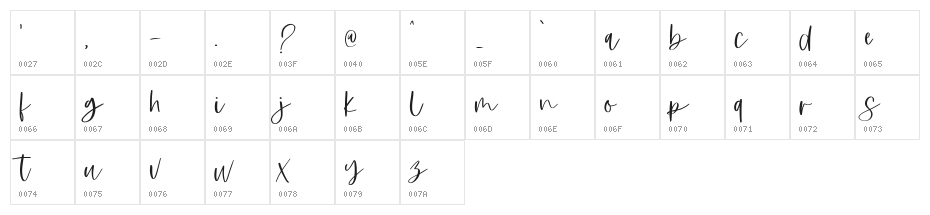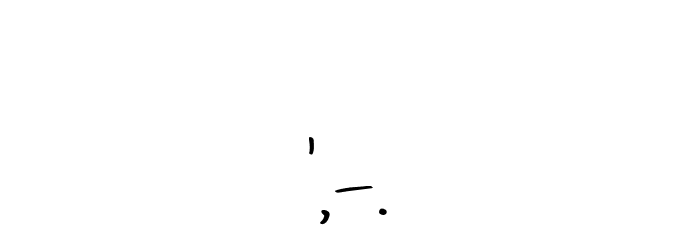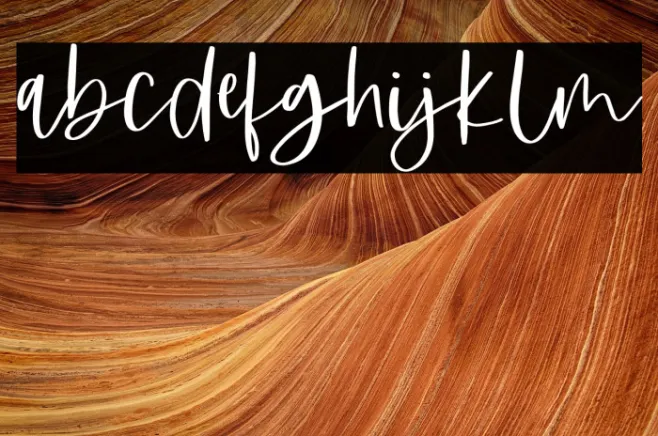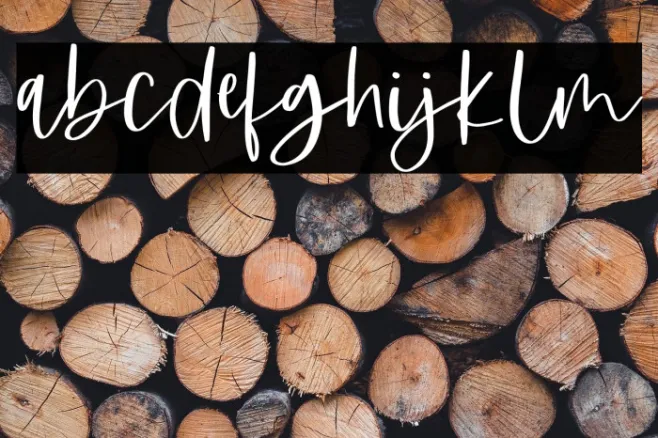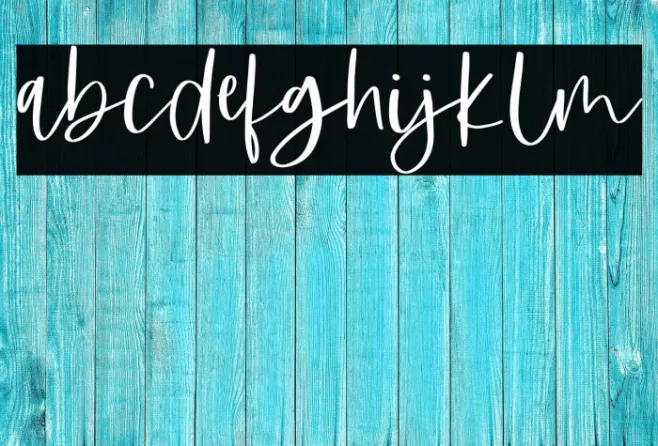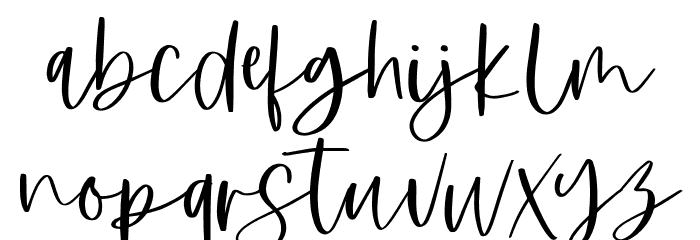
Goodly Font
Goodly Description
This font features a playful and casual handwritten style with a modern flair. The letters are fluid and slightly slanted, giving a sense of movement and personality. The strokes vary in thickness, adding a dynamic and lively feel to the text. The characters are well-spaced, maintaining readability while showcasing an artistic touch. This font is perfect for projects that require a personal and approachable aesthetic, such as invitations, greeting cards, or social media graphics.
| Proposed Projects | Ideal for invitations, greeting cards, social media graphics, and personal branding. |